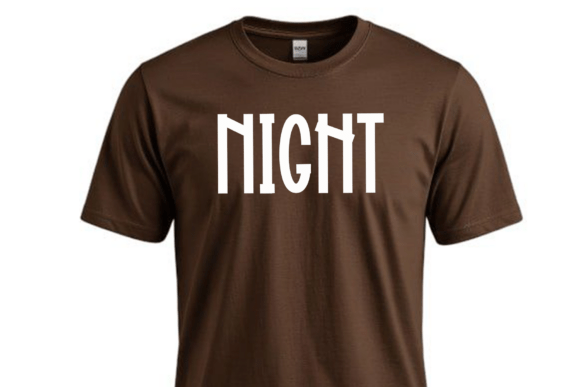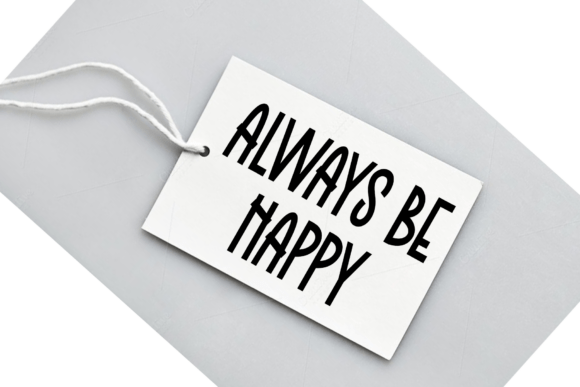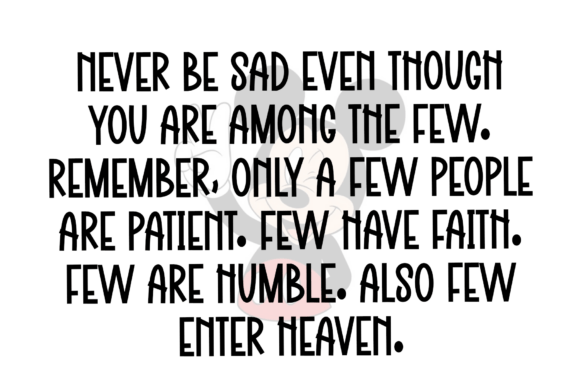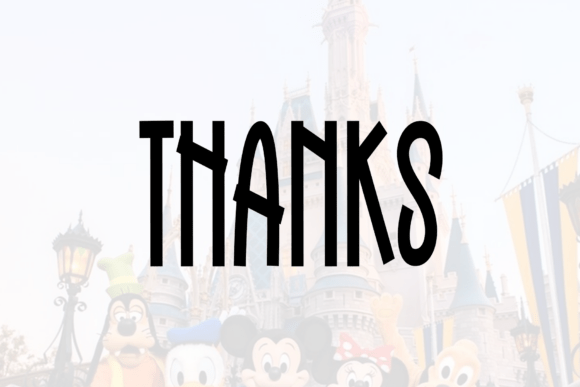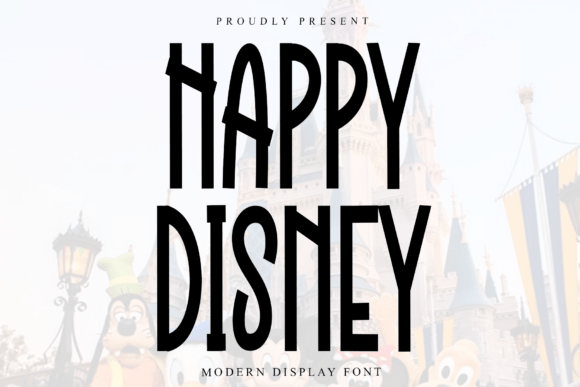
Introducing Happy Disney Font: Elevate Your Design with Elegance and Sophistication
In the realm of typography, few fonts manage to capture the essence of modern elegance while conveying a sense of approachability. Happy Disney Font is one such unique entry into the modern handwritten collection, designed meticulously to evoke clarity, crisp elegance, and a refreshing aesthetic. This article delves into the characteristics of Happy Disney Font, its design philosophy, and the myriad ways it can elevate your design projects, from travel photography and outdoor gear branding to sophisticated web design.
The Distinctive Features of Happy Disney Font
Happy Disney Font stands out with its tall, thin strokes that lend an air of sophistication and refinement to any design. A subtle, airy slant adds a dynamic feel, preventing the font from appearing too static or rigid. This balance between elegance and fluidity makes Happy Disney Font versatile, capable of adapting to various design needs without compromising on style or legibility.
The clean and approachable style of Happy Disney Font is one of its most compelling features. In an era where design trends often veer towards minimalism or complexity, Happy Disney Font strikes a perfect chord. It offers a refreshing aesthetic that feels as invigorating as a mountain breeze, making it an excellent choice for designers seeking to infuse their projects with a touch of modernity and grace.
Ideal Applications for Happy Disney Font
Travel Photography
Travel photography is all about capturing the essence of a place, its culture, and its landscapes. Happy Disney Font complements travel photography by adding a narrative element that feels both sophisticated and adventurous. Whether it’s used for captions, titles, or photo credits, this font enhances the storytelling aspect of travel images, making them more engaging and visually appealing.
Branding for Outdoor Gear
For outdoor gear and apparel brands, establishing a strong identity that resonates with adventure-seekers and nature lovers is crucial. Happy Disney Font, with its clean lines and elegant feel, offers the perfect blend of professionalism and ruggedness. It can be used effectively in logos, marketing materials, and packaging, helping brands to communicate their values and aesthetic in a clear, compelling manner.
Sophisticated Web Design
In web design, typography plays a pivotal role in user experience and engagement. Happy Disney Font can be a game-changer for websites that aim to offer a premium user experience. Its readability, combined with its elegant appearance, makes it suitable for headers, titles, and even body text in certain contexts. This font can help in creating a cohesive brand voice and visual identity that sets a website apart from the competition.
Why Choose Happy Disney Font?
Choosing a font for a design project can be overwhelming, given the vast options available. Happy Disney Font, however, offers a unique combination of style, versatility, and legibility that makes it an attractive choice for designers and crafters. Here are a few reasons why:
• Unique yet Professional: It provides a fresh take on modern handwritten fonts, suitable for projects that require a touch of elegance.
• Versatile: Its clean and approachable style makes it adaptable to various design applications.
• Elegant Aesthetic: The tall, thin strokes and subtle slant offer a refined look that can elevate the visual appeal of any project.
Font Name Happy Disney Font
Author Preketek texs
Happy Disney Font is more than just a typographic choice; it’s a design statement. It embodies a blend of modern elegance, approachability, and versatility that can transform your design projects. Whether you’re a designer looking to elevate your portfolio, a brand seeking to redefine your identity, or a crafter aiming to add a professional touch to your creations, Happy Disney Font is an excellent choice. Embrace the elegance and sophistication it offers, and watch your designs come alive with a fresh, refined aesthetic.